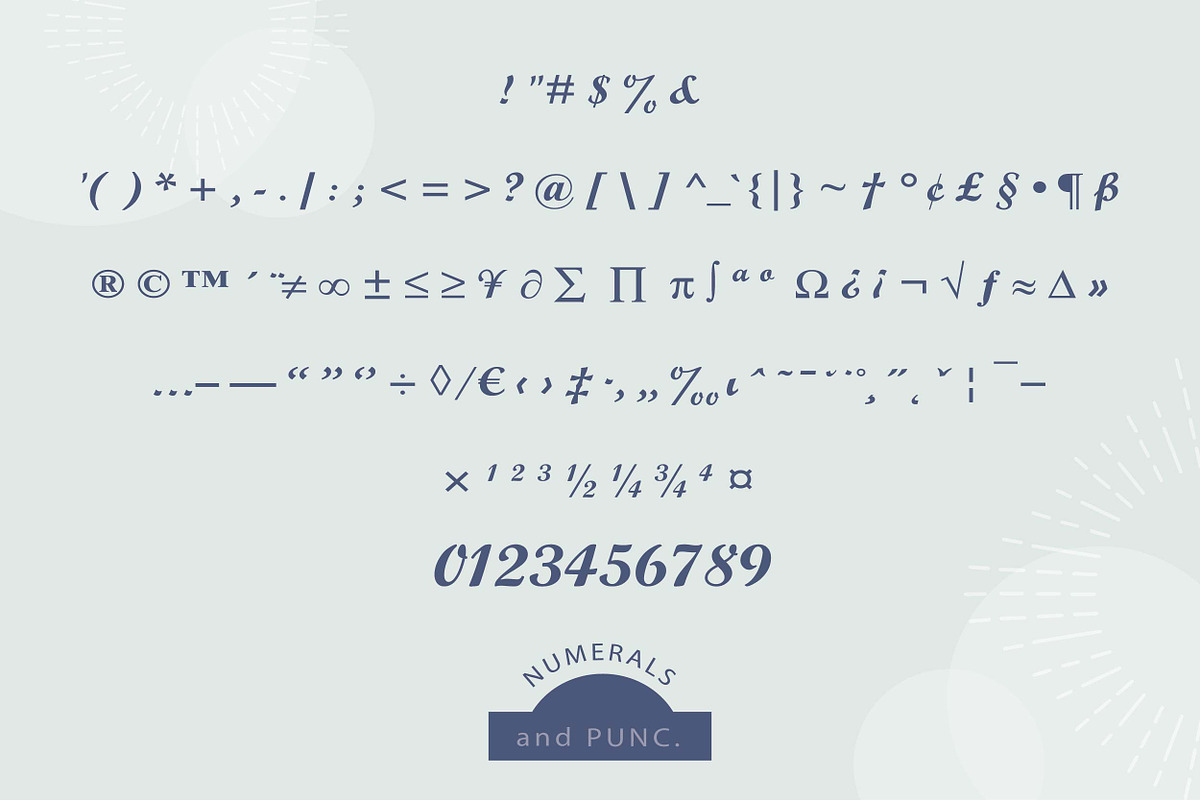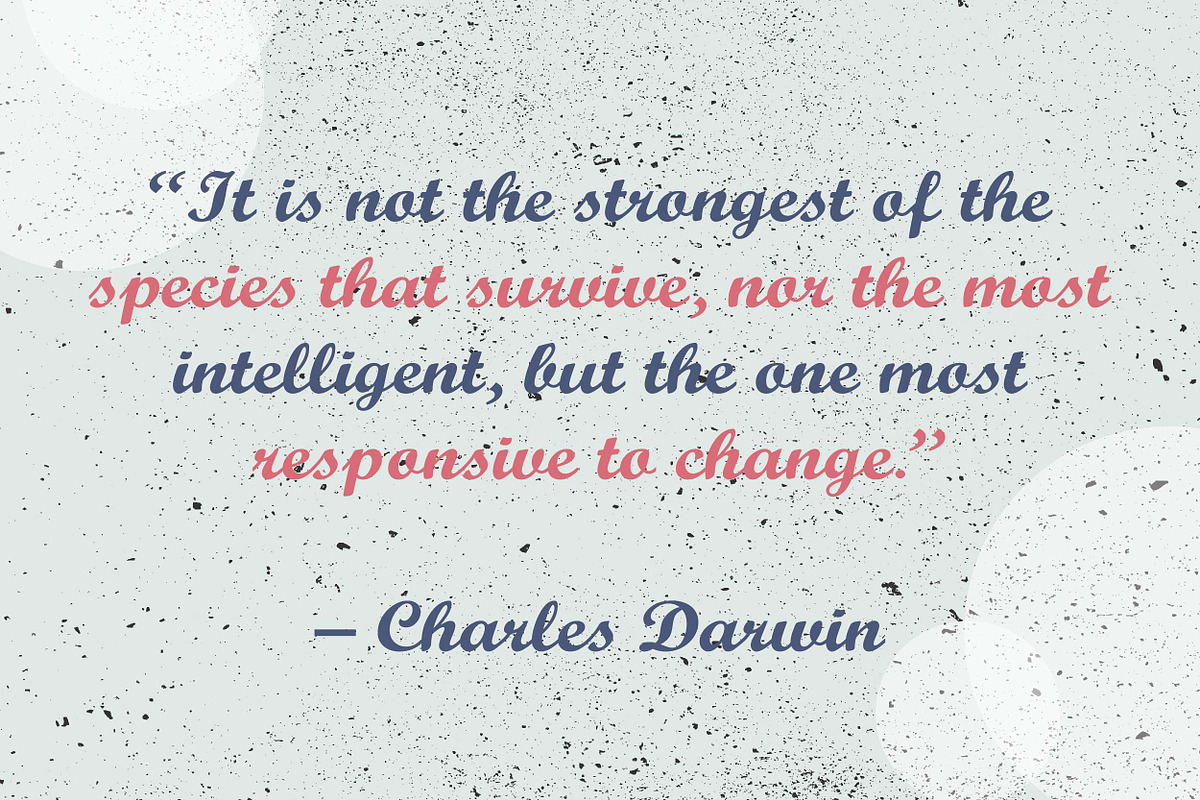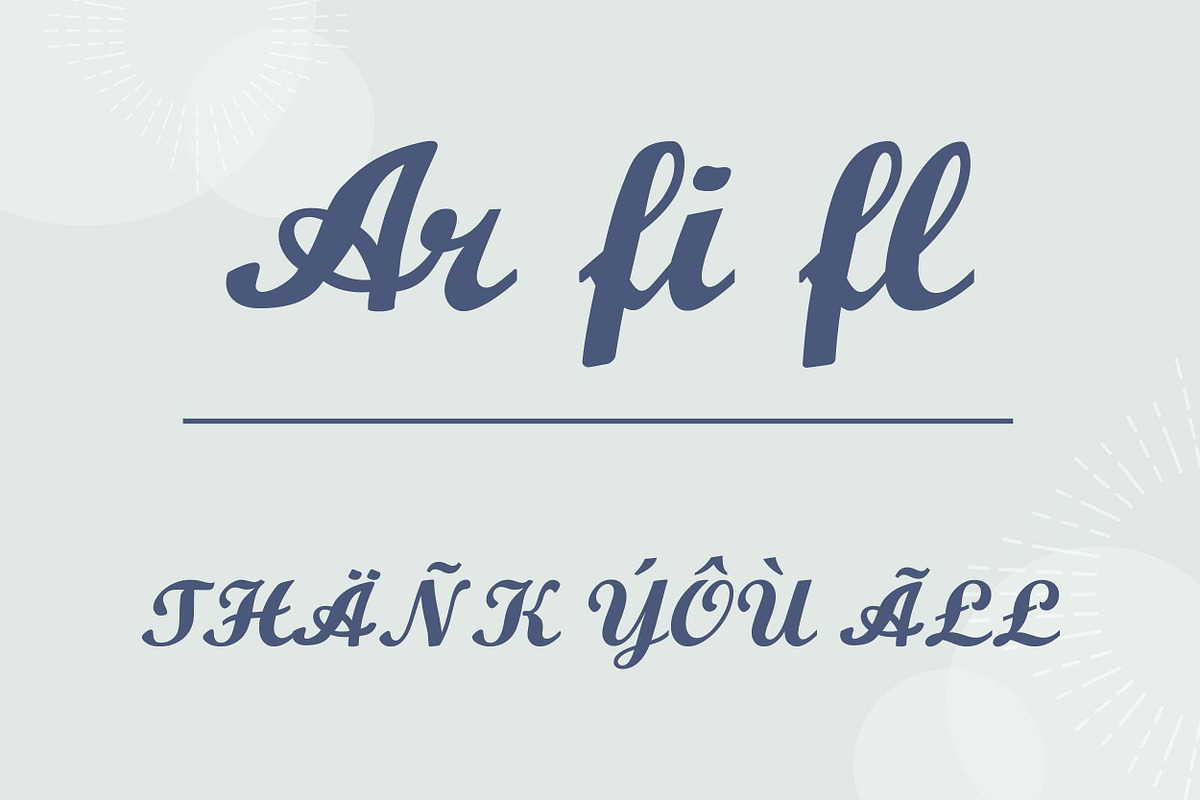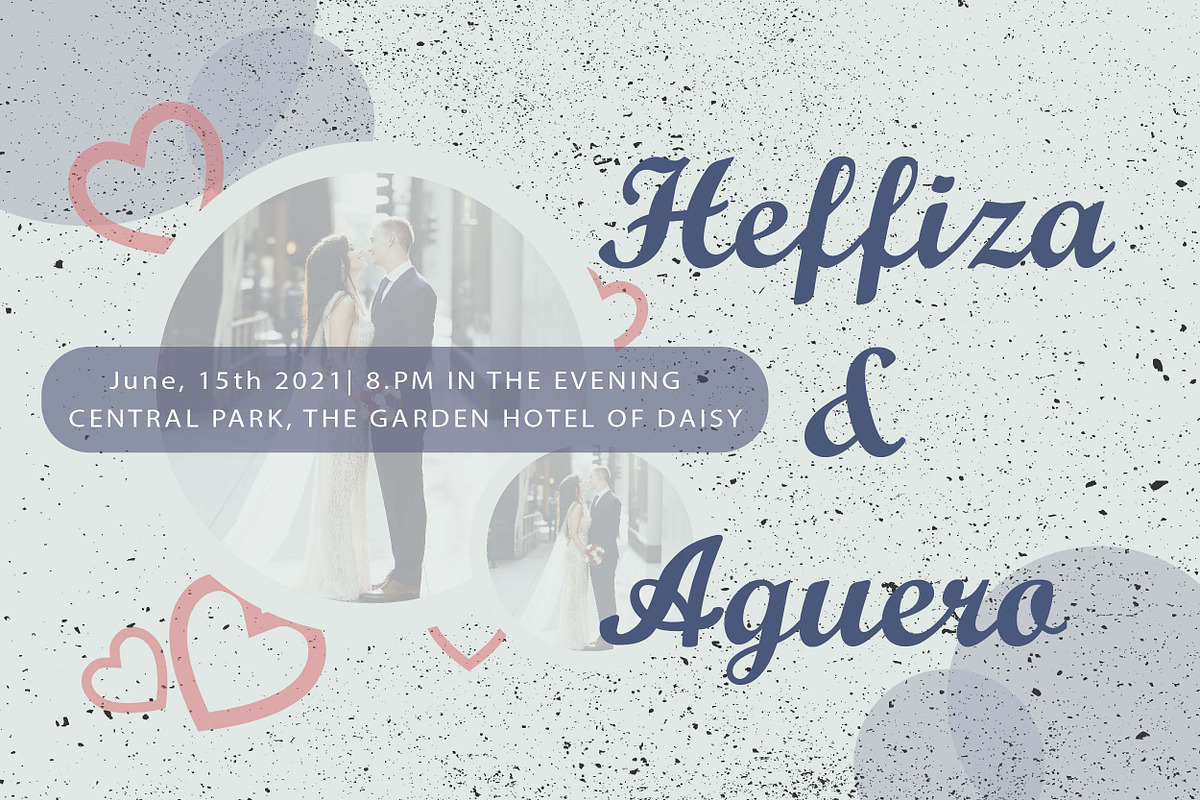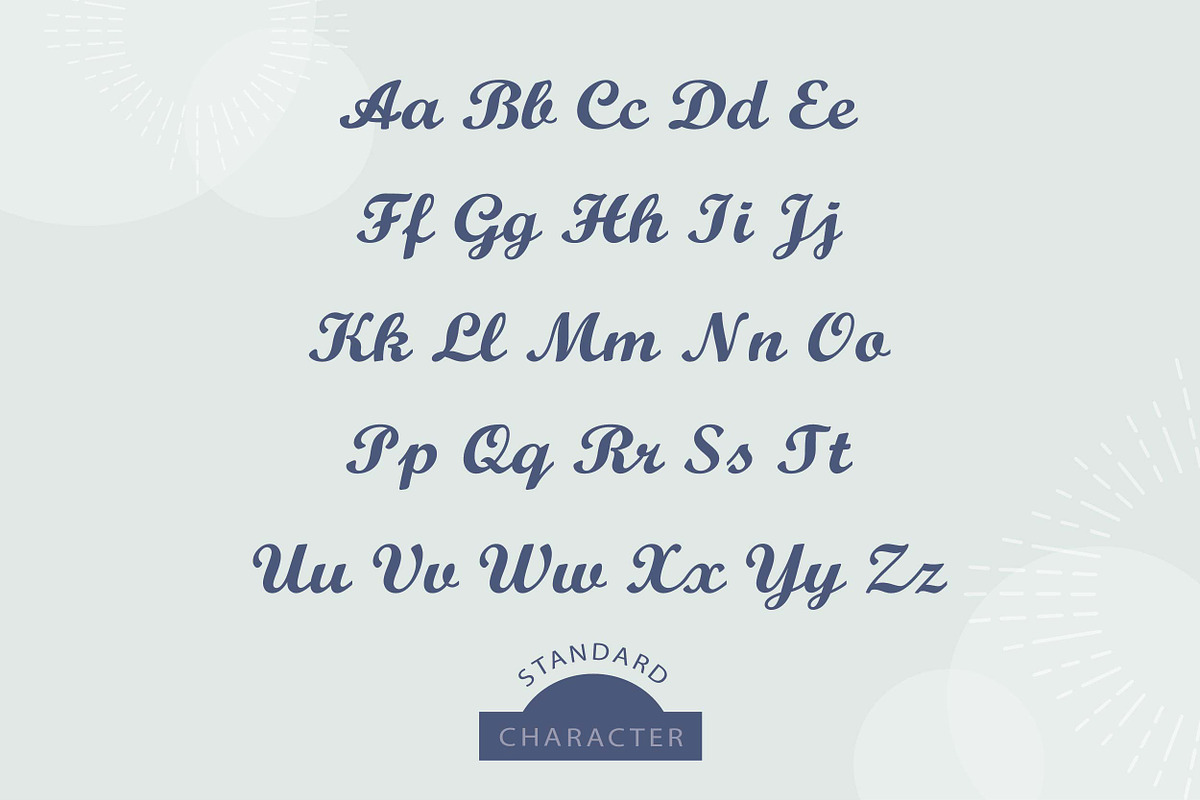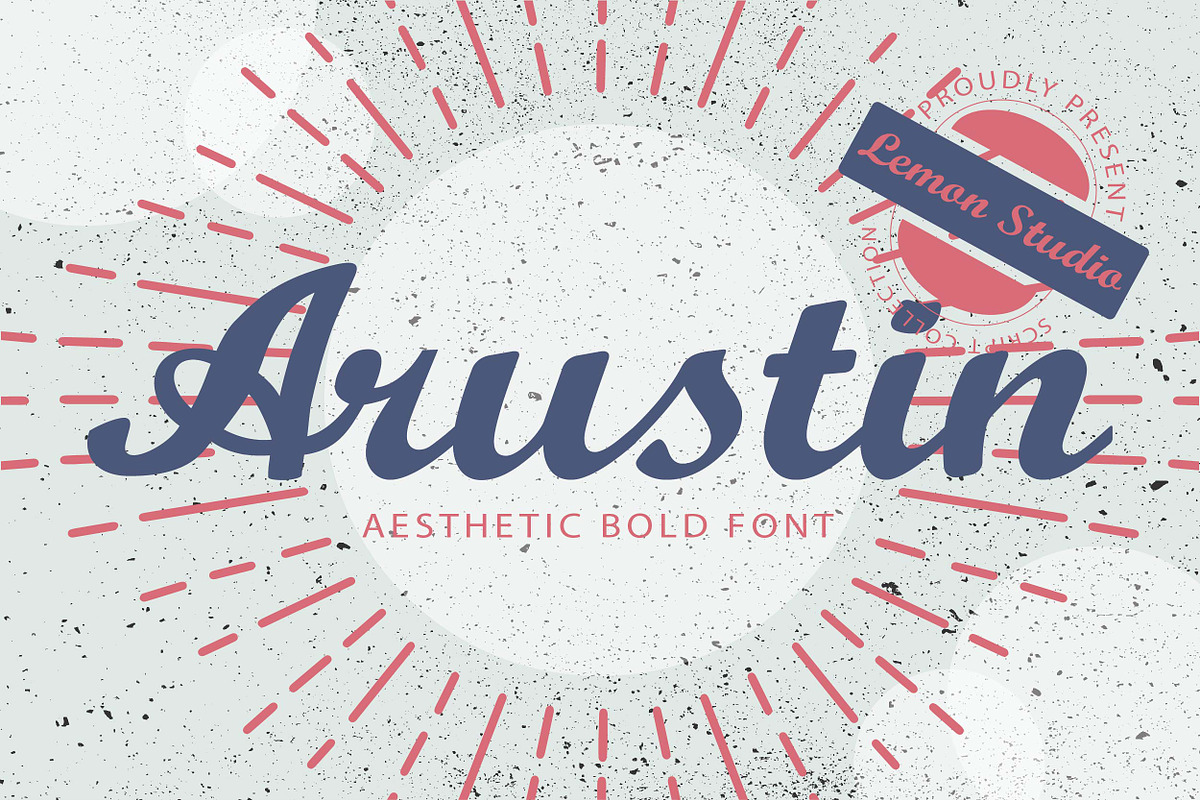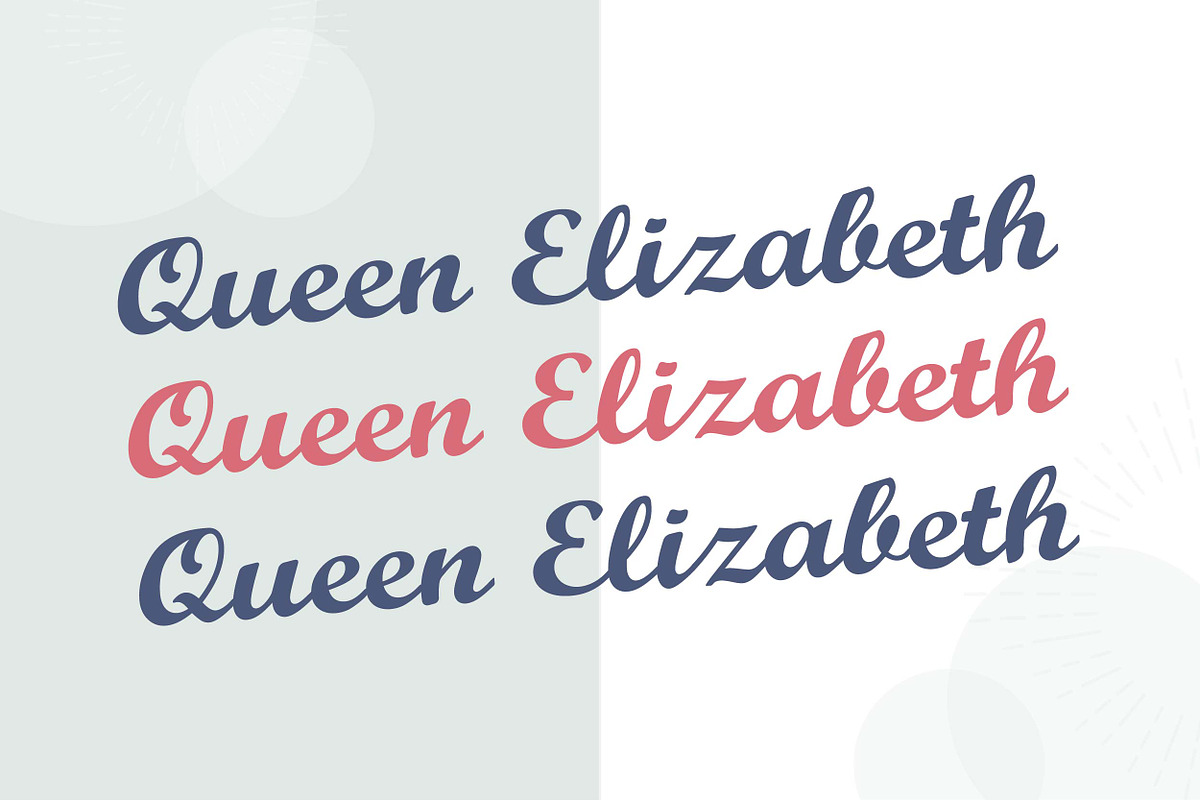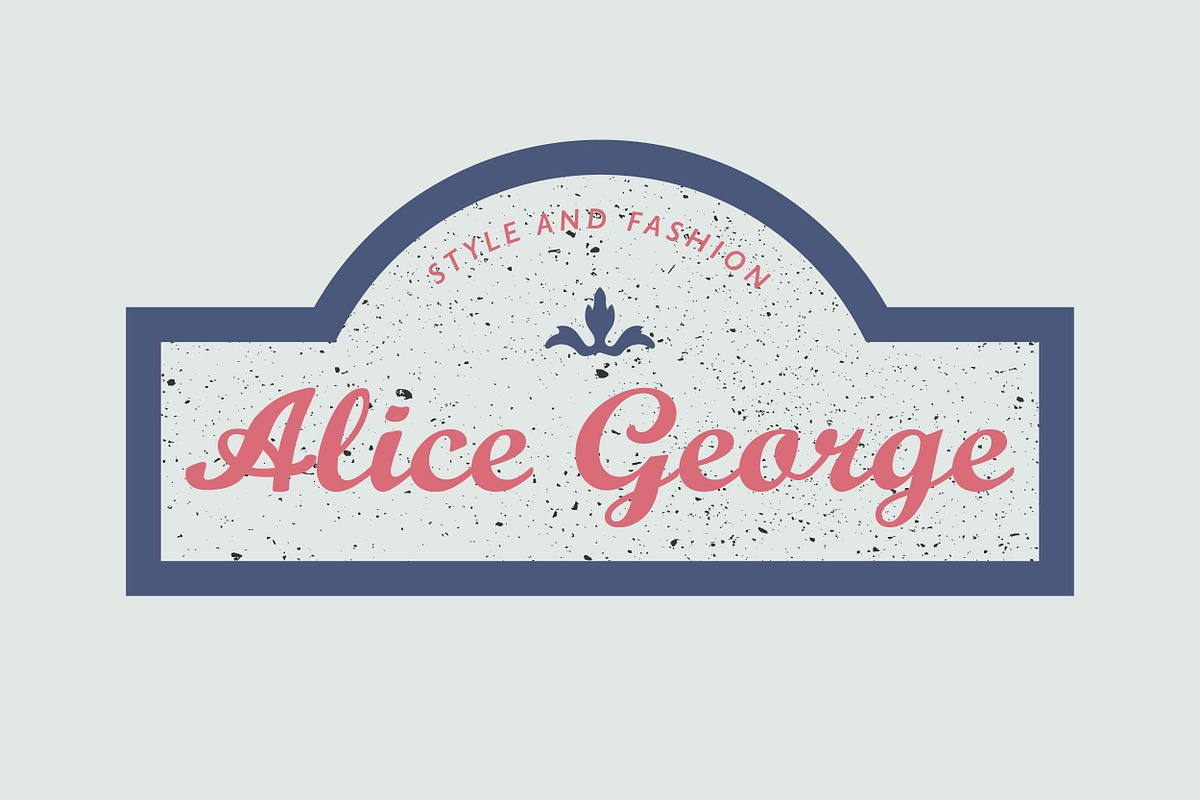
Arustin - Bold Script
Arustin is a aesthetic script bold font. This type of font perfectly made to be applied especially in logo, headline, signage and the other various formal forms such as invitations, labels, logos, magazines, books, greeting / wedding cards, packaging, fashion, make up, stationery, novels, labels or any type of advertising purpose.
-OPENTYPE FEATURES:
-Superscript
-Fractions
-Discretionary Ligatures
-Multilingual Support.